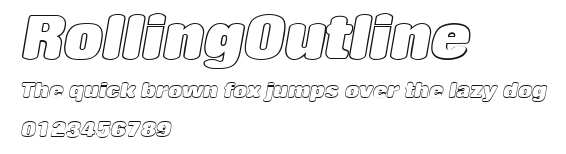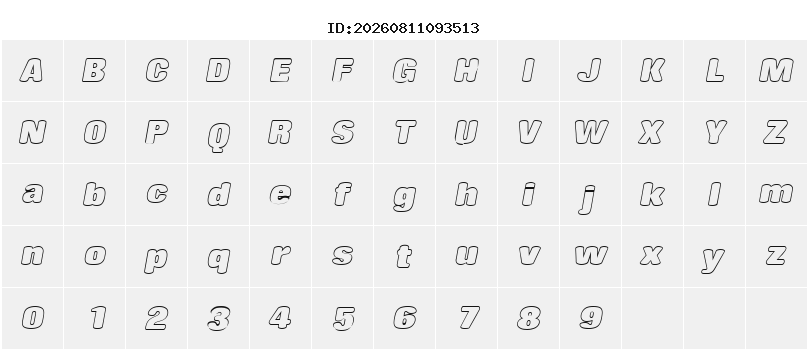
RollingOutline Preview
• Font Name: RollingOutline
• Font ID: Altsys Fontographer 3.5 RollingOutline Italic
• Full Font Name: RollingOutline Italic
• Version: Altsys Fontographer 3.5 20.01.1995
• PostScript Name: RollingOutline-Italic
• Character Count: 179
About RollingOutline.ttf
RollingOutline.ttf is a modern, elegant sans-serif font designed for ultimate readability and visual harmony. Perfect for branding, headlines, web design, and print materials.